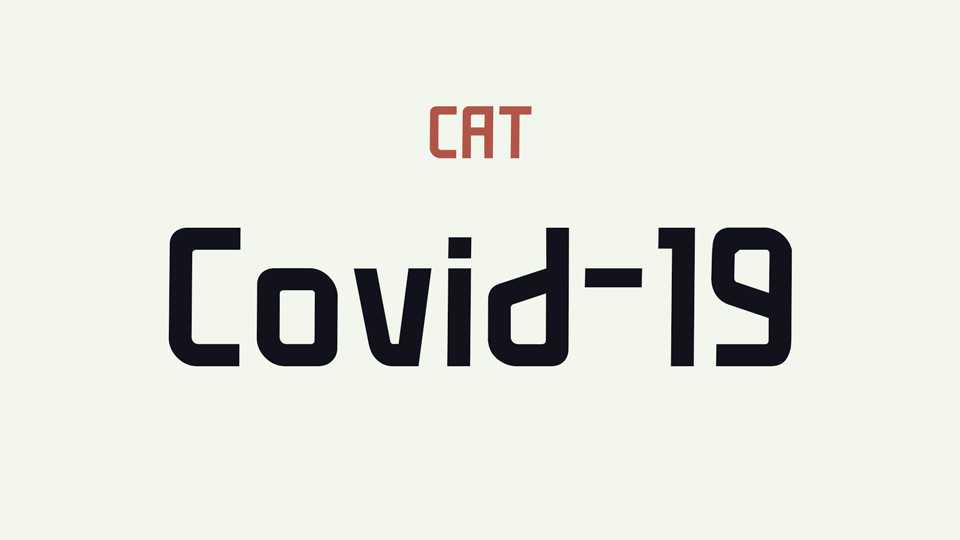
Download Covid-19 font, a solid techno style sans serif typeface with extended language support, including Cyrillic and Greek. Covid-19 font works perfect for headlines and short text paragraphs.